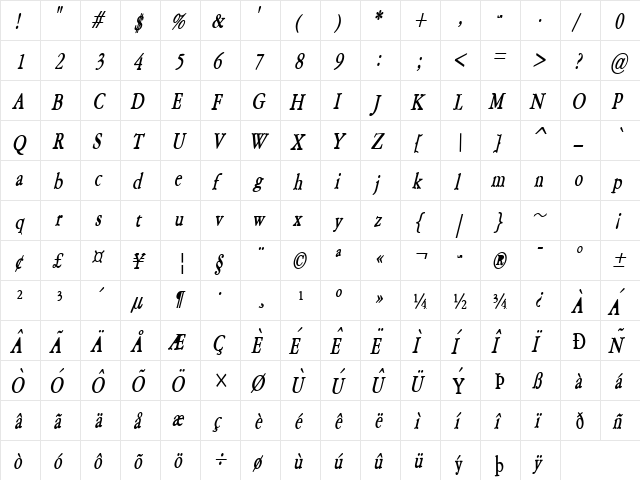
Amery Condensed BoldItalic Font Preview
Design Context for Amery Condensed Typeface
Amery Condensed offers clean, dependable letterforms without strong stylistic allegiance, making it a practical choice for designers who need flexibility. The dynamic lean of this cut emphasises speed and emphasis in any layout. Its bold stroke weight gives it real presence on the page. The condensed width makes it efficient for tight spaces without sacrificing legibility.
Pro Tip: Try Amery Condensed for annotation and caption copy alongside an upright companion — the contrast in angle creates a dynamic but ordered typographic system.